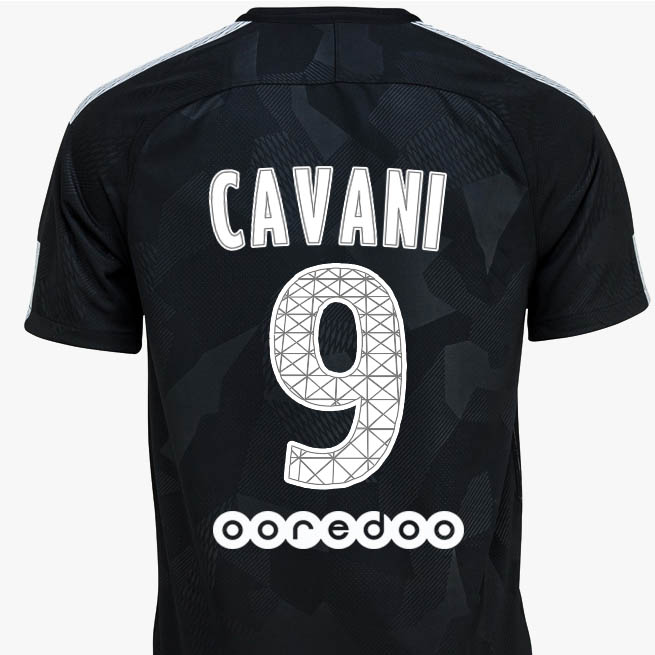
Update - Eiffel Tower-Inspired Paris Saint-Germain 17-18 Third Kit Font Revealed
Update #2: Neymar has posted a picture of his kit ahead of today's Champions League clash against Real Madrid, perfectly showing off the unique typeface that is inspired by the Eiffel Tower.
Updated: Paris Saint-Germain debuted their new Nike Camo 2017-18 third kit in the Champions League group stage match against Bayern München yesterday. However the new PSG 2017-2018 UEFA Champions League typeface is different to the one shown on the PSG website, which is based on the Ligue 1 font and will be likely used in the French league, and also different to the unique font available on Nike.com...
Paris Saint-Germain 2017-18 Third Kit Font - Champions League Version
This is the new Nike Paris Saint-Germain 17-18 third kit typeface.
Just as last season, Nike has again created a unique font for the new PSG third jersey.
Nike Paris Saint-Germain 2017-18 Third Jersey Font - Ligue 1 Version
This is PSG's 2017-18 third font.
Inspired by the iconic Eiffel Tower, a symbol of tradition and modernity, and based on the standard Ligue 1 font, the new Nike Paris Saint-Germain 2017-2018 third kit numbers are white with light grey lattice detail. The same unique details can be also found on the white stripe that runs down the sleeves of the new Nike Paris Saint-Germain 2017-2018 third shirt uniform.
Unlike last year, the new Paris Saint-Germain 2017-2018 third kit font will be also used in the Ligue 1.